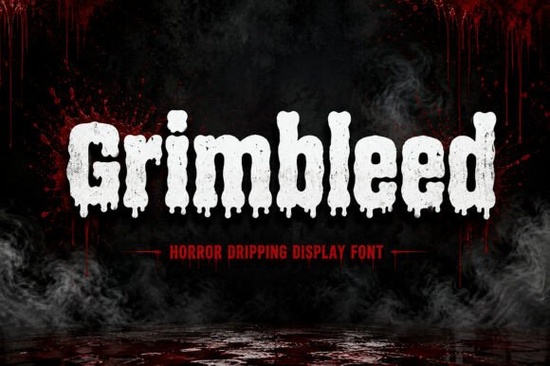
When you need a typeface that instantly sets a dark, bloody mood, the Grimbleed Font is worth a close look. Designed for horror projects, this dripping display font captures the feel of haunted houses, creepy forests, and classic Halloween nightmares. Its bold, melting letterforms lean into the scary side of design without losing readability which is exactly what you want when you're working on movie posters, event flyers, or spooky merchandise.
What makes Grimbleed different from other horror fonts?
There are plenty of creepy fonts out there, but Grimbleed stands out because of its organic, dripping style. The letters look like they're made of thick, viscous liquid almost as if the type itself is melting off the page. That gives your text a sense of movement and unease that standard bold fonts just can't deliver. It's inspired by classic horror imagery: dripping blood, haunted houses, eerie forests, and all the things that make Halloween truly frightening. Each character has a raw, hand-drawn feel, but the font remains consistent enough to use for longer headlines or titles.
If you run a print-on-demand shop or create merchandise, this font can help your designs stand out on crowded platforms. It works especially well on dark backgrounds where the dripping shapes pop against the contrast. For example, a white or red Grimbleed headline on a black T-shirt instantly signals "horror" without needing any extra artwork.
Where can you use a dripping display font like Grimbleed?
Grimbleed is versatile enough to fit many projects, as long as you're aiming for a scary or gothic tone. Here are some places designers and small business owners have been using it:
- Horror movie posters and book covers the dripping effect matches thriller, slasher, and supernatural genres well.
- Halloween party flyers and haunted house promotions it immediately tells people this event is not for the faint of heart.
- Video game titles and YouTube thumbnails especially for survival horror, zombie games, or creepy storytime videos.
- Merchandise: T-shirts, stickers, and packaging a single word like "FEAR" or "BLOOD" in Grimbleed becomes the whole design.
- Social media graphics and gothic branding for bands, escape rooms, or dark-themed shops.
- Spooky invitations and event promotions birthday parties, horror conventions, or Halloween weddings.
- Uppercase and lowercase letters the full alphabet in dripping style.
- Numbers and punctuation enough to write dates, prices, and full sentences.
The font is OTF format, which works well in most design apps and gives you good quality at any size. Because it's a display font (not meant for long body text), it shines best in headlines over 24 points.
Is Grimbleed easy to use for beginners?
One tip: try pairing Grimbleed with a simple sans-serif font for the rest of your text. That way the horror font stays the star of the headline, and the body copy remains easy to read. For example, use Grimbleed for "ZOMBIE NIGHT" and a clean font like Montserrat for the date and location.